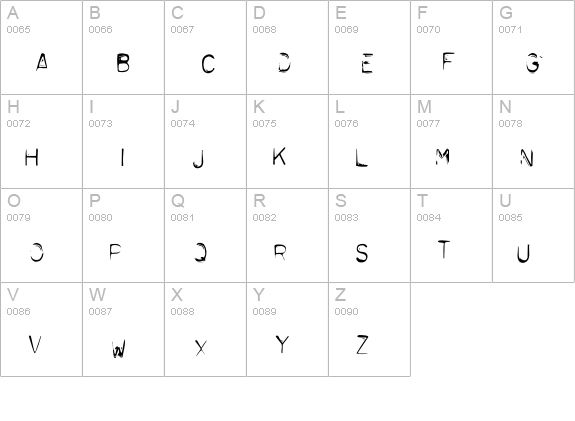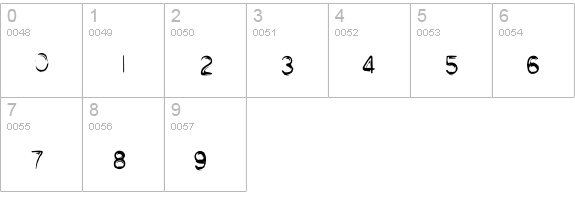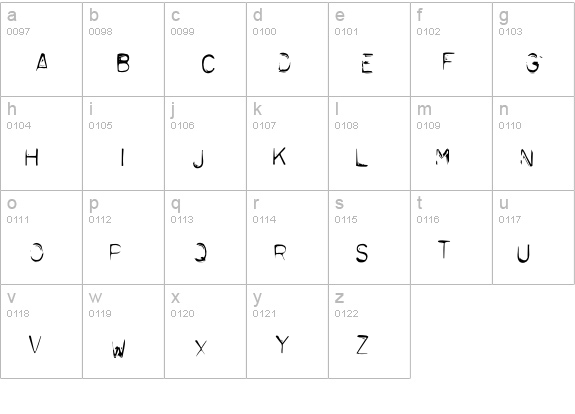
Typo-PositiveDistressed Font Details
Introducing Typo-PositiveDistressed, a font that effortlessly combines boldness and vintage charm. This unique typeface has been meticulously crafted to evoke a sense of nostalgia, bringing forth a delightful blend of imperfections and character. With its distressed appearance, Typo-PositiveDistressed captures the essence of a bygone era, adding a touch of authenticity to any design project. Its rough edges and irregular letterforms exude a sense of rawness and authenticity, making it perfect for vintage-inspired branding, logo design, packaging, and more. The beauty of Typo-PositiveDistressed lies in its versatility. Whether you are looking to create eye-catching headlines, captivating posters, or stylish social media graphics, this font has got you covered. Its unique distressed texture adds a sense of depth and personality, instantly elevating your designs to new heights. As an added bonus, Typo-PositiveDistressed is available free of charge for personal and commercial use. You can easily download this font at FontsMarket.com, a trusted source for high-quality and diverse typography. So why wait? Unleash your creativity and make a lasting impression with Typo-PositiveDistressed. Embrace the beauty of imperfection and let this font breathe life into your designs.